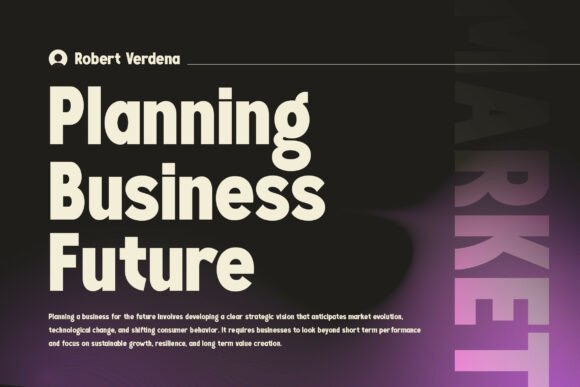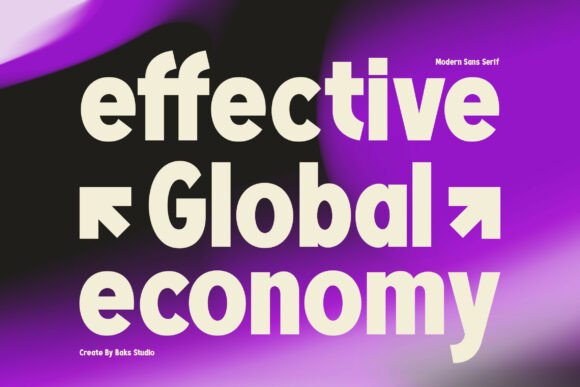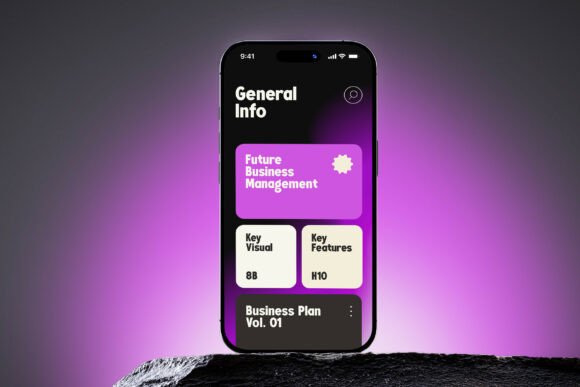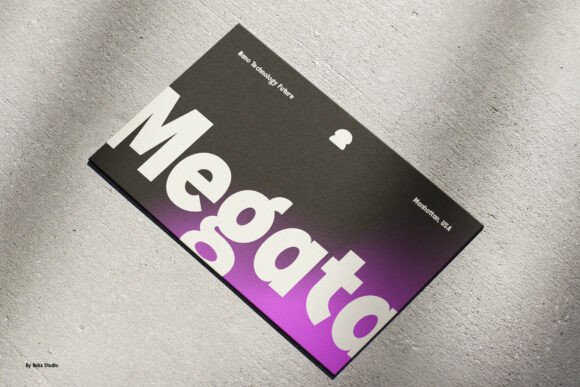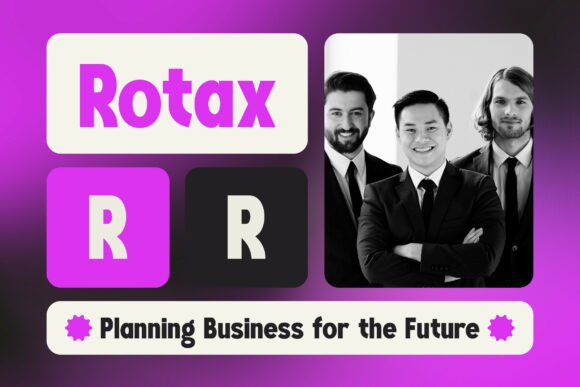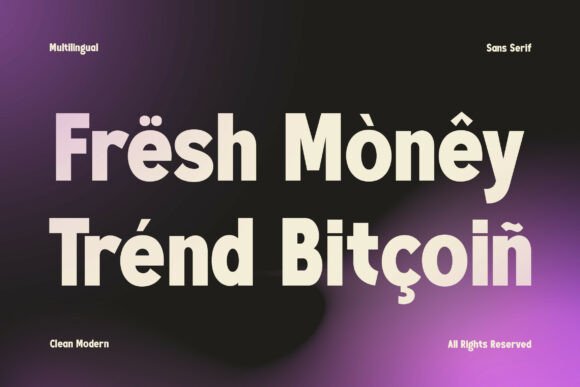
Introduction to Rotak Font
Rotak is a Modern and Clean Sans Serif meticulously crafted to be the ultimate visual anchor for premium corporate branding.
Rotak achieves this through its robust, geometric architecture and perfectly balanced negative space The sturdy weight of the letterforms commands attention instantly, while its exceptionally clean lines give it a sleek, tech forward, and expensive aesthetic.